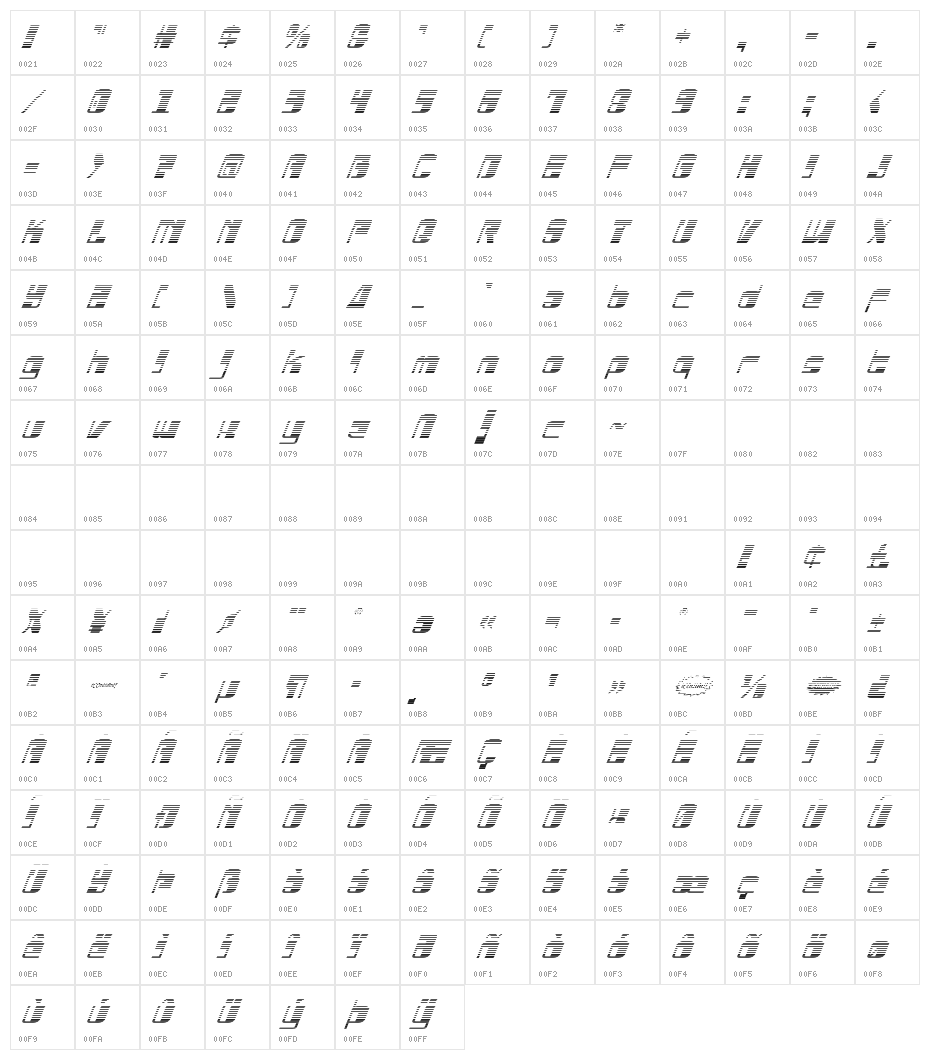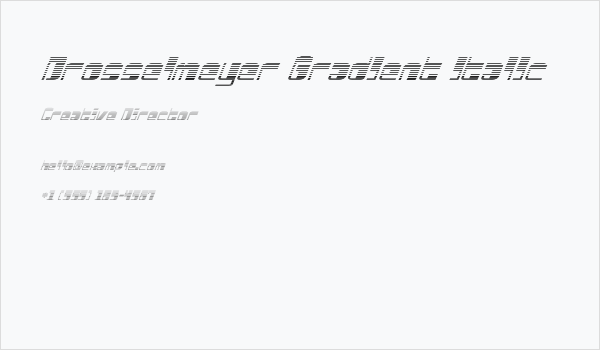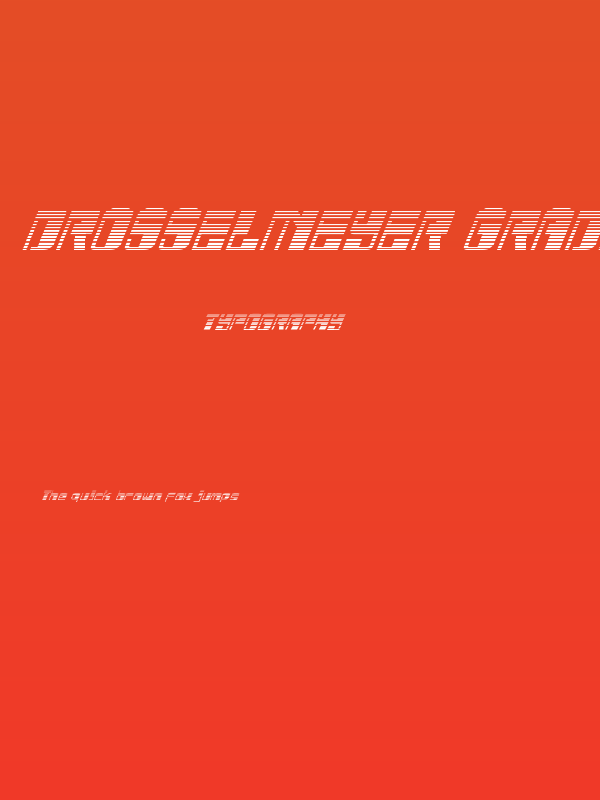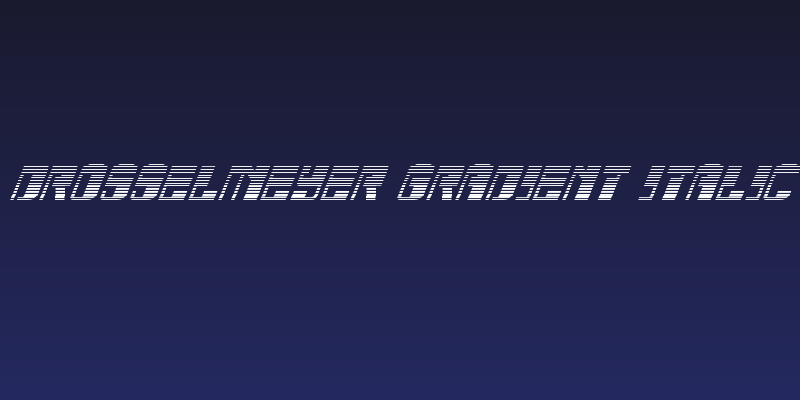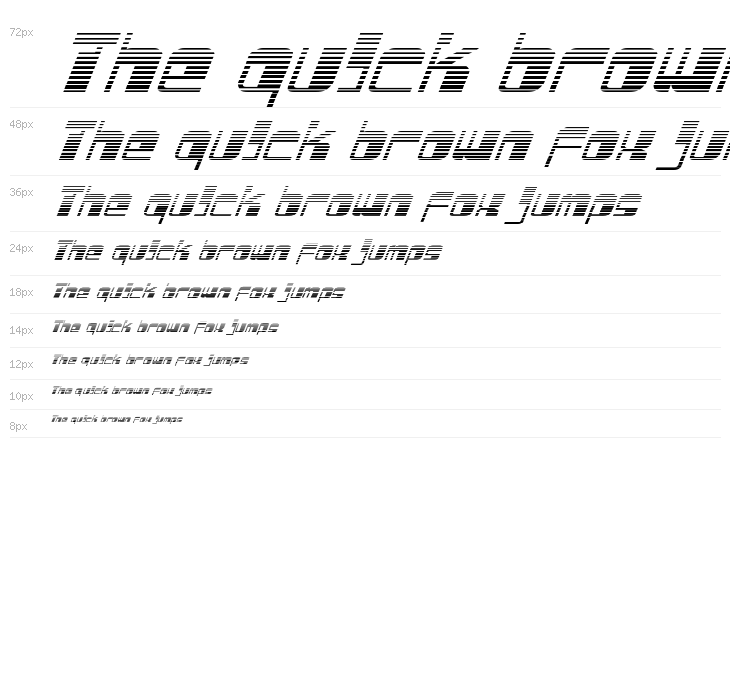
Drosselmeyer Gradient Italic Font
Drosselmeyer Gradient Italic Description
This font features a dynamic and futuristic design with a distinct gradient effect created by horizontal lines that form each character. The italicized style adds a sense of motion and speed, making it ideal for modern and tech-oriented projects. The uppercase and lowercase letters maintain a consistent slant, enhancing the overall sleek appearance. Numbers and special characters are designed with the same gradient pattern, ensuring uniformity across all elements. The font's unique style is eye-catching and suitable for creative and innovative designs.
| Proposed Projects | Ideal for tech branding, futuristic posters, video game titles, and innovative product packaging. |